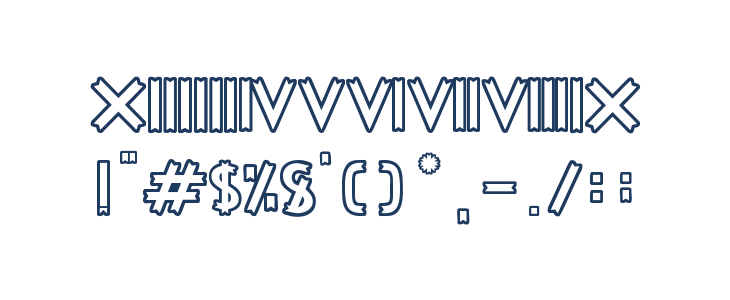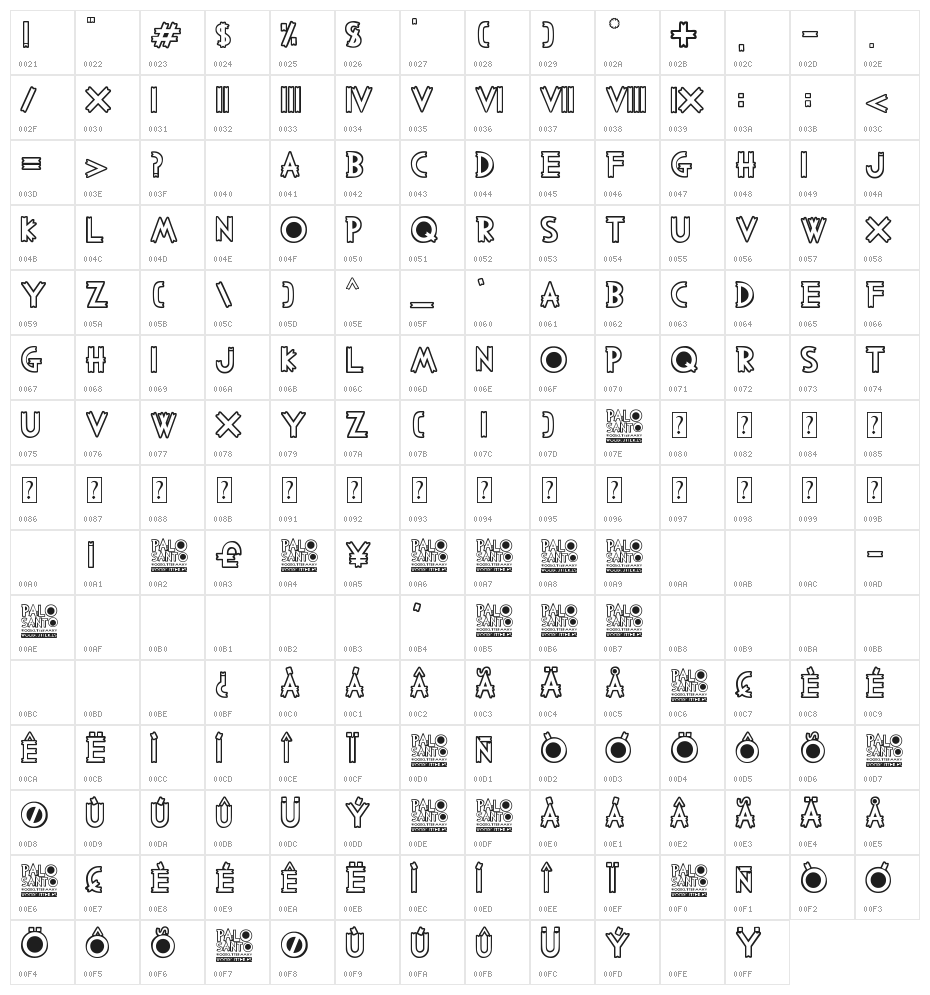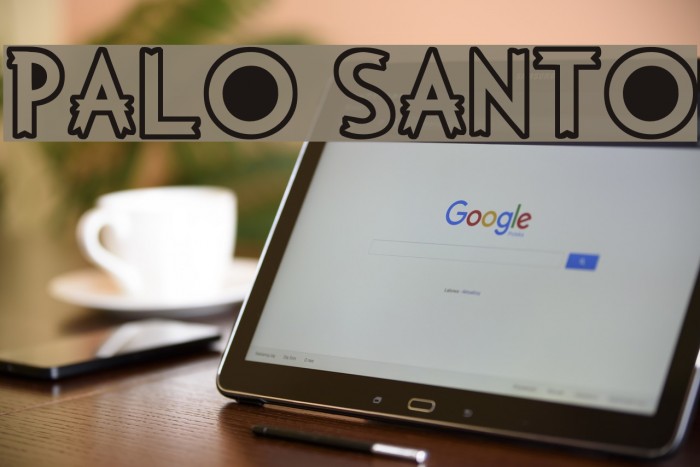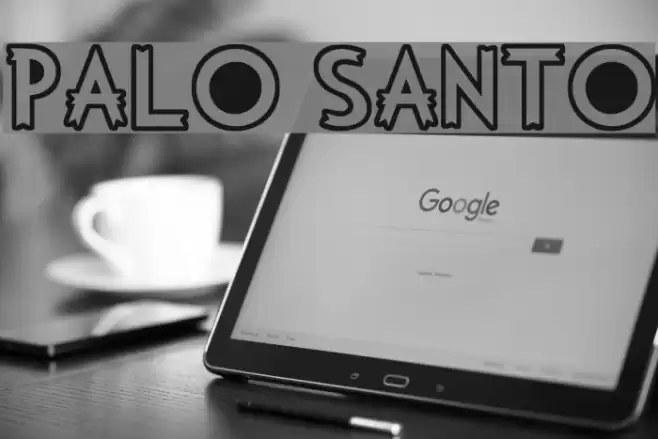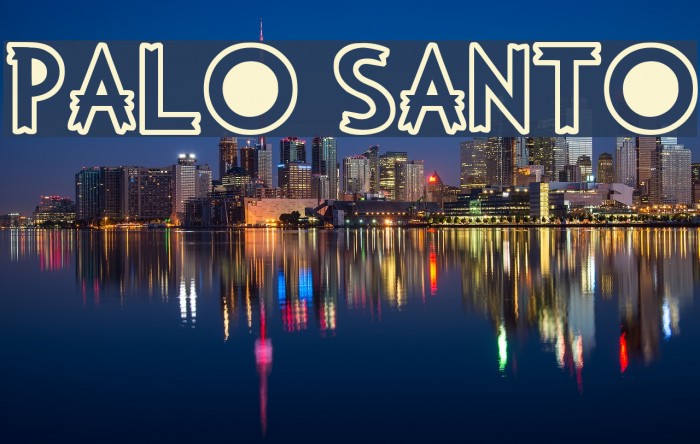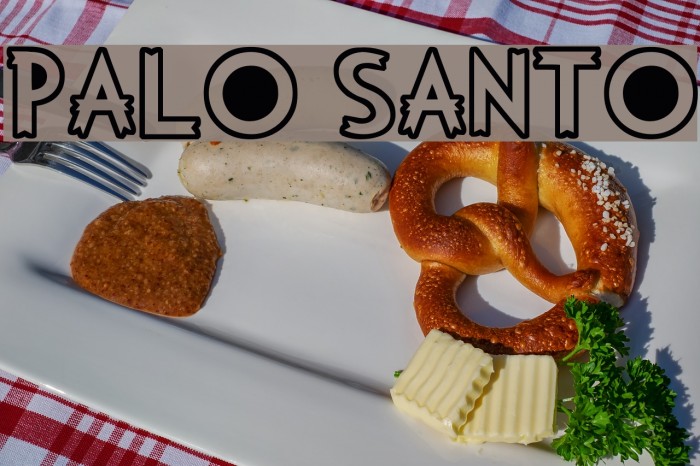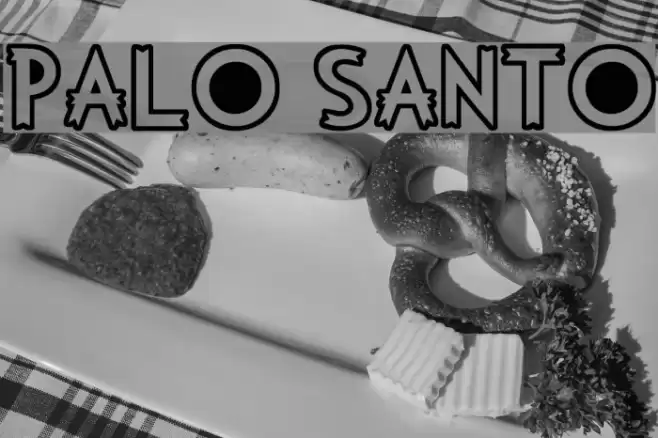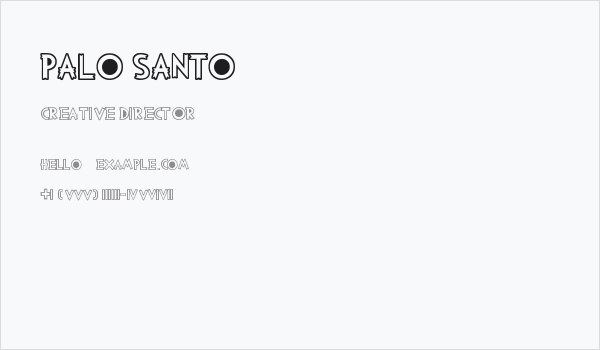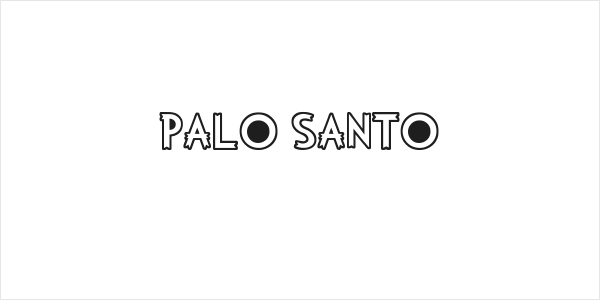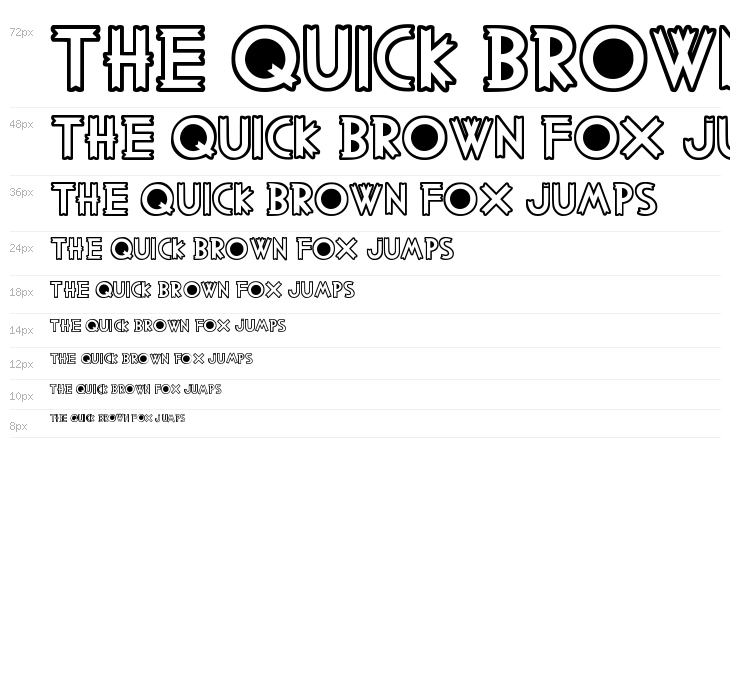
PALO SANTO Font
PALO SANTO Description
This font features a bold, decorative style with a unique outline effect that gives it a striking appearance. The characters are uppercase with a consistent, geometric design, incorporating sharp angles and clean lines. The font has a playful yet structured look, making it suitable for eye-catching designs. The special characters maintain the same bold outline, ensuring consistency across all glyphs. Its distinct style is reminiscent of retro or vintage themes, yet it maintains a modern edge through its clean execution.
| Proposed Projects | Ideal for posters, logos, headlines, and any design project requiring a bold, standout typeface. |